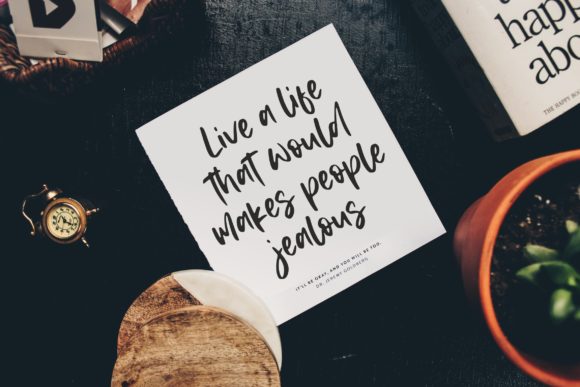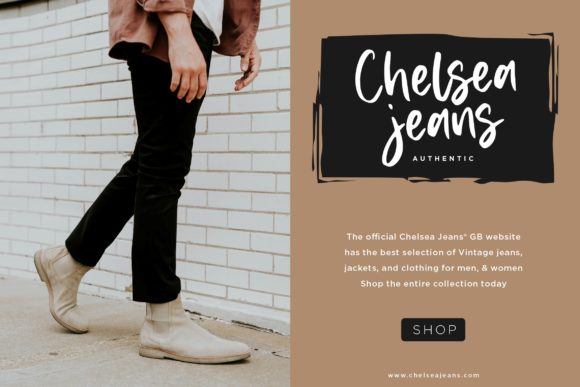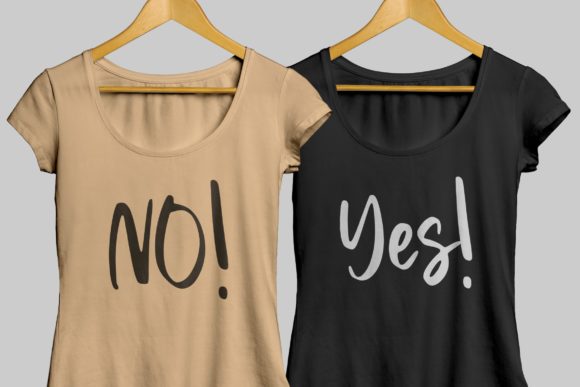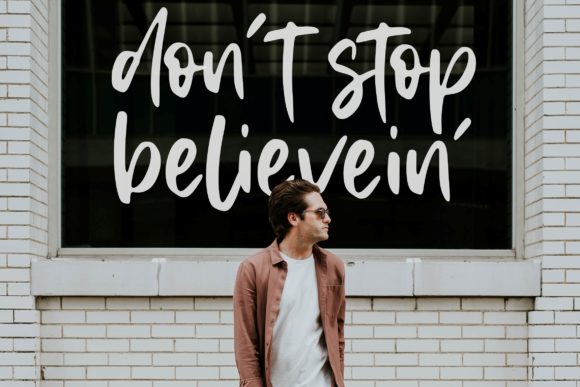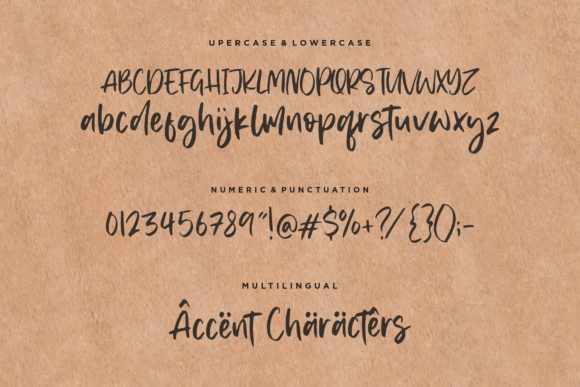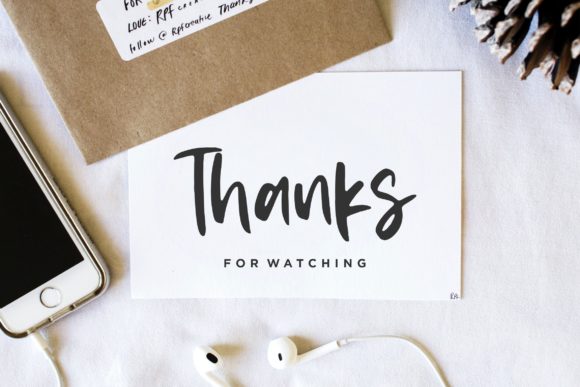
Memphis River Font
About Memphis River Font
Memphis River is a unique and elegant handwritten font. It looks beautiful on a variety of designs requiring a personalized style, such as wedding invitations, thank you cards, weddings, greeting cards, logos and so on.